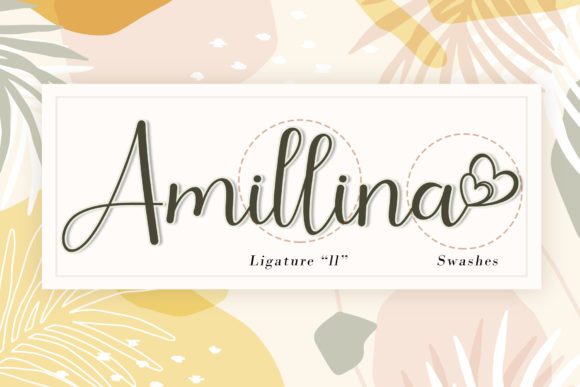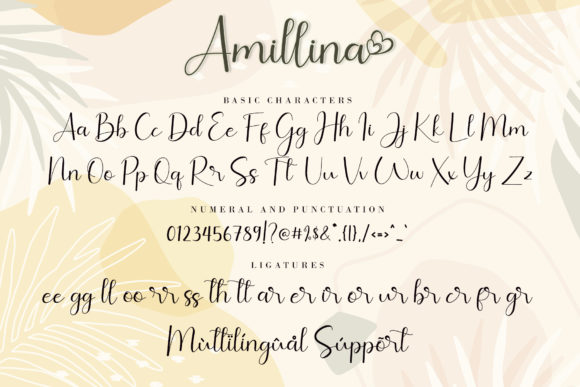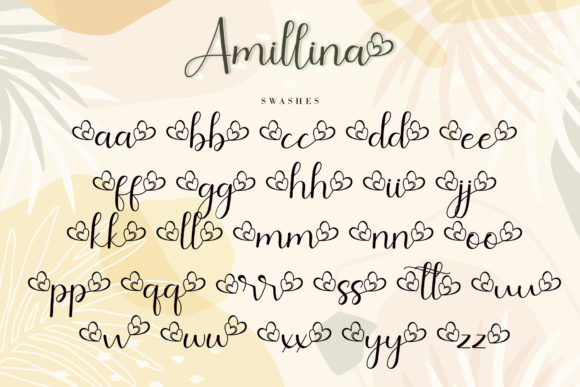
About Amillina Font
Amillina is a delicate, elegant and flowing handwritten font. It has beautiful and well balanced characters and as a result, it matches a wide pool of designs. Add it to your most creative ideas and notice how it makes them come alive! This font is PUA encoded which means you can access all of the glyphs and swashes with ease!